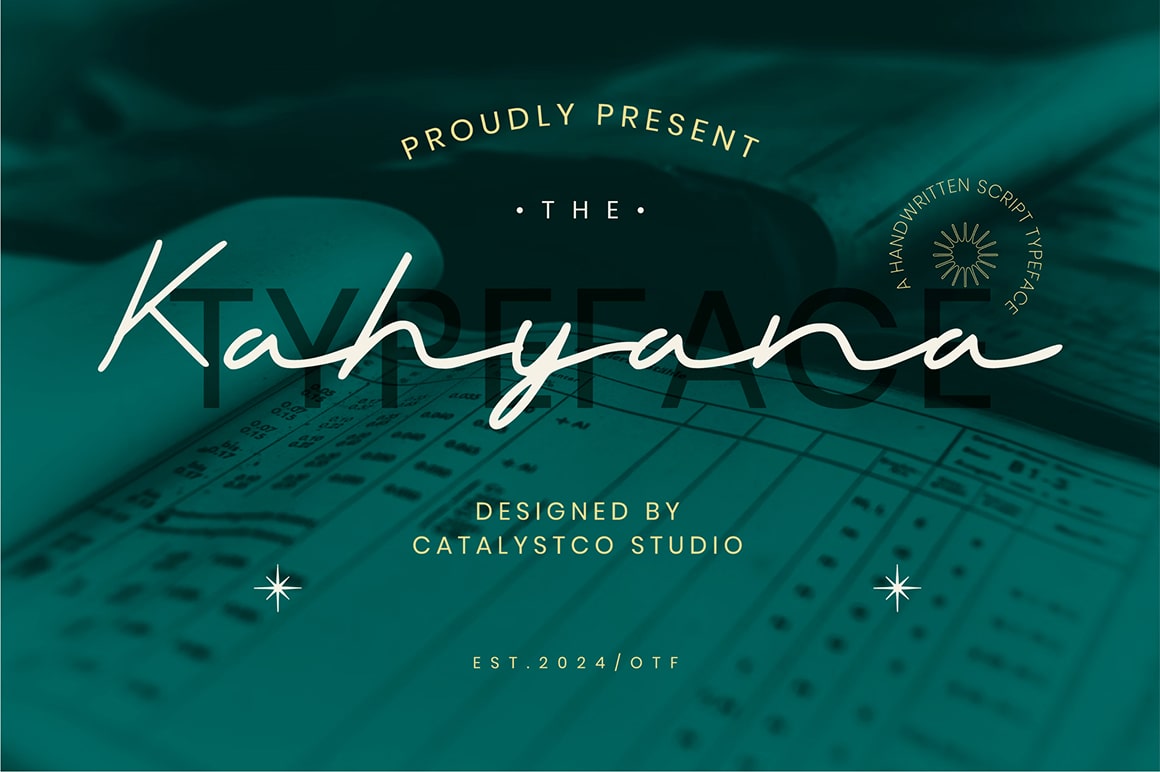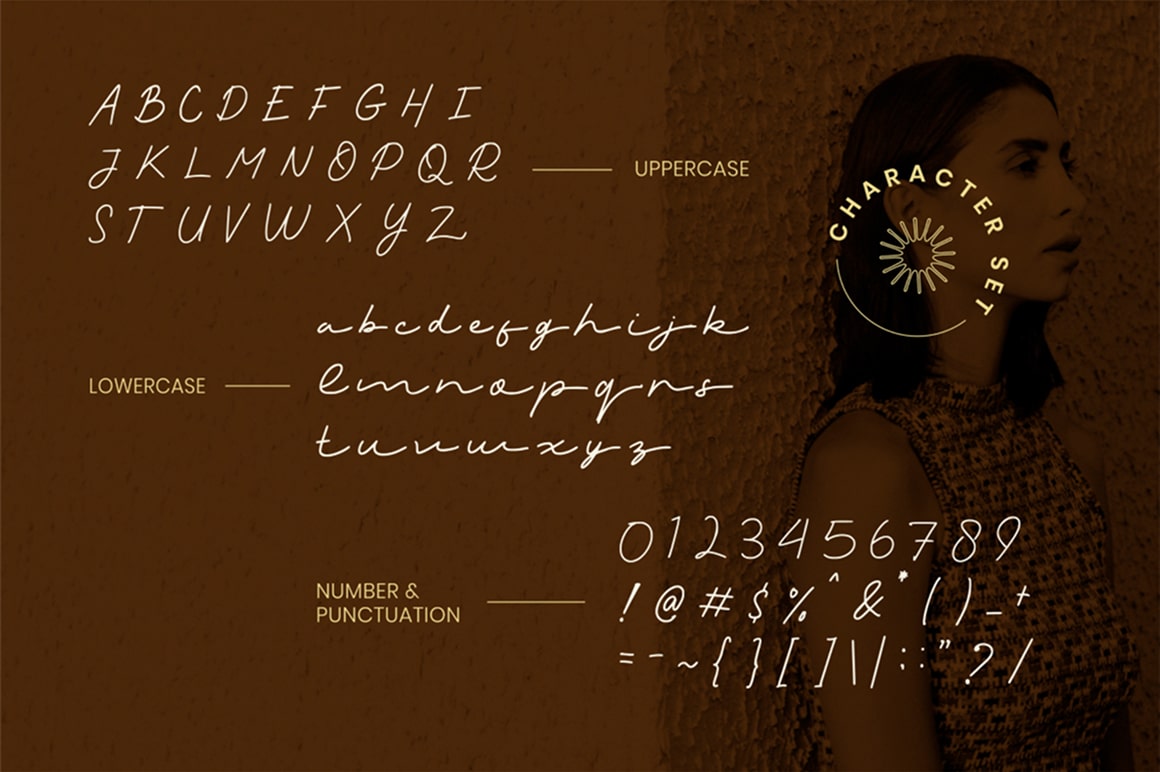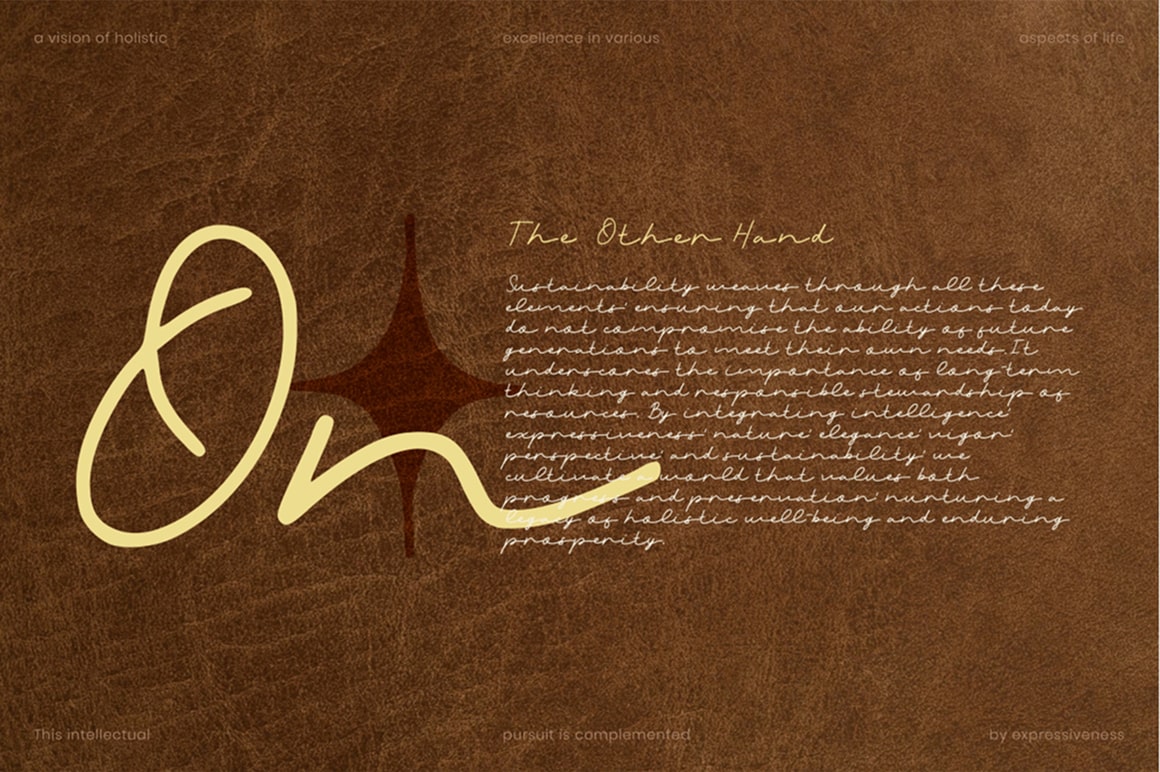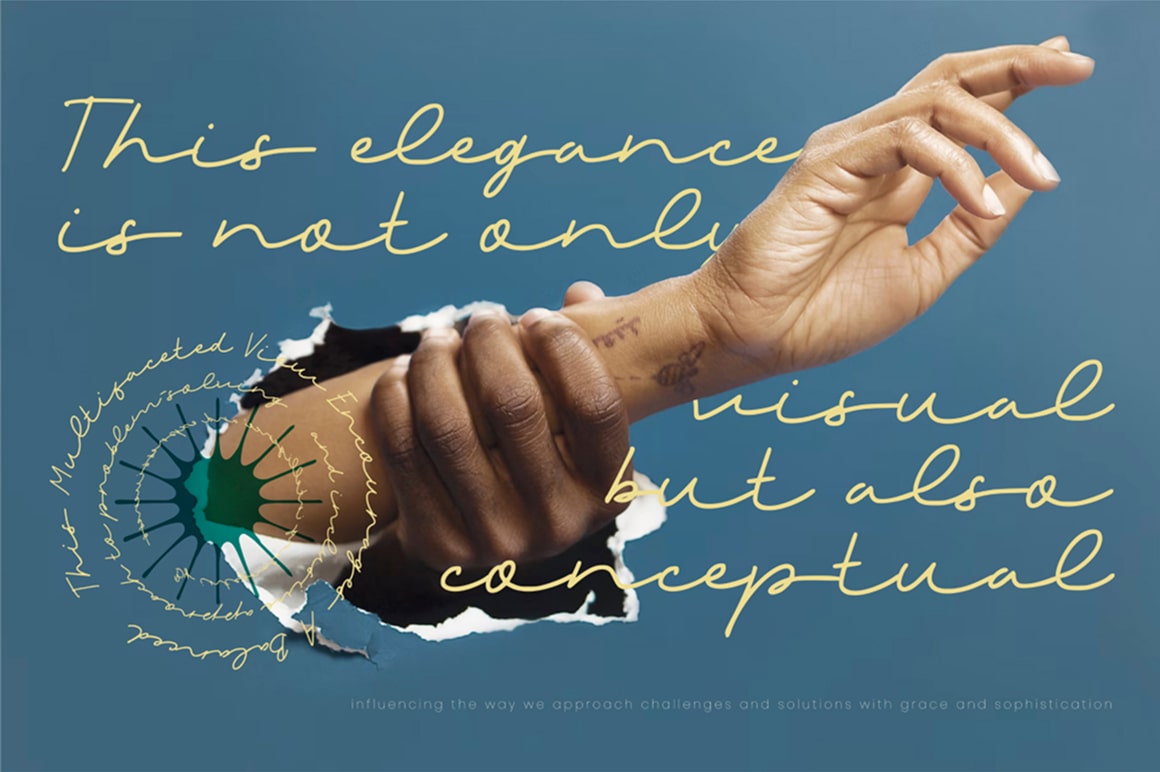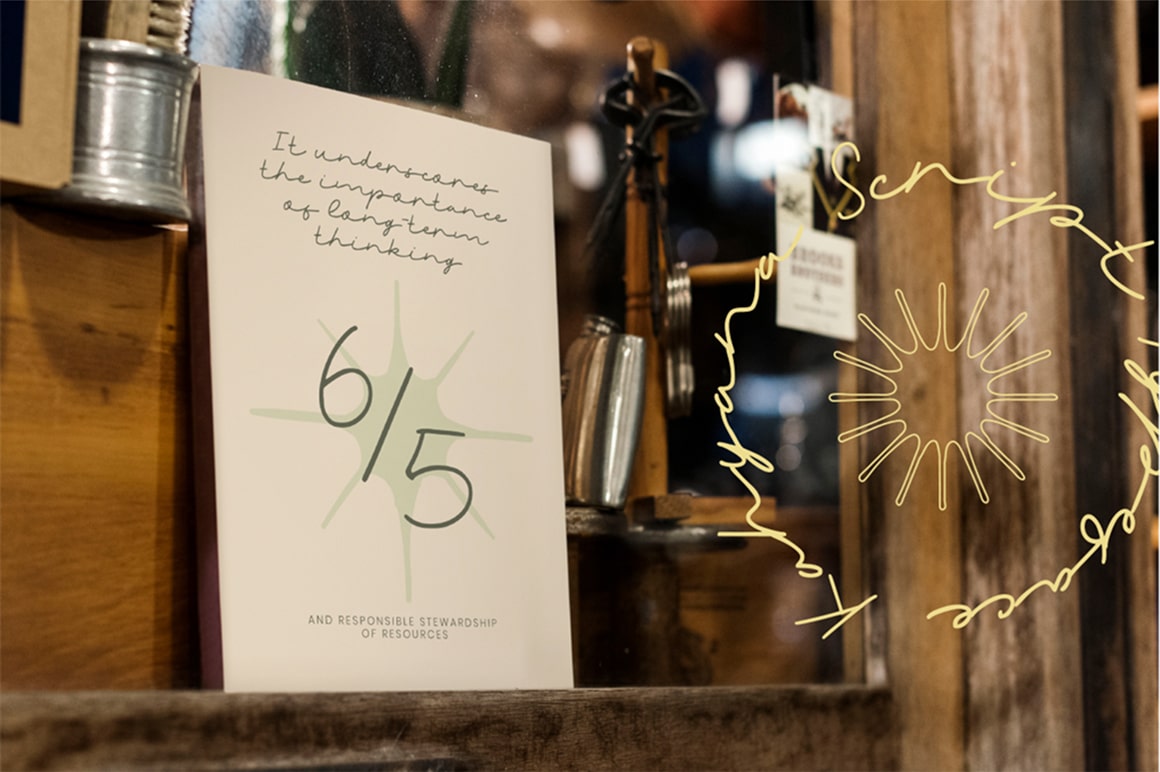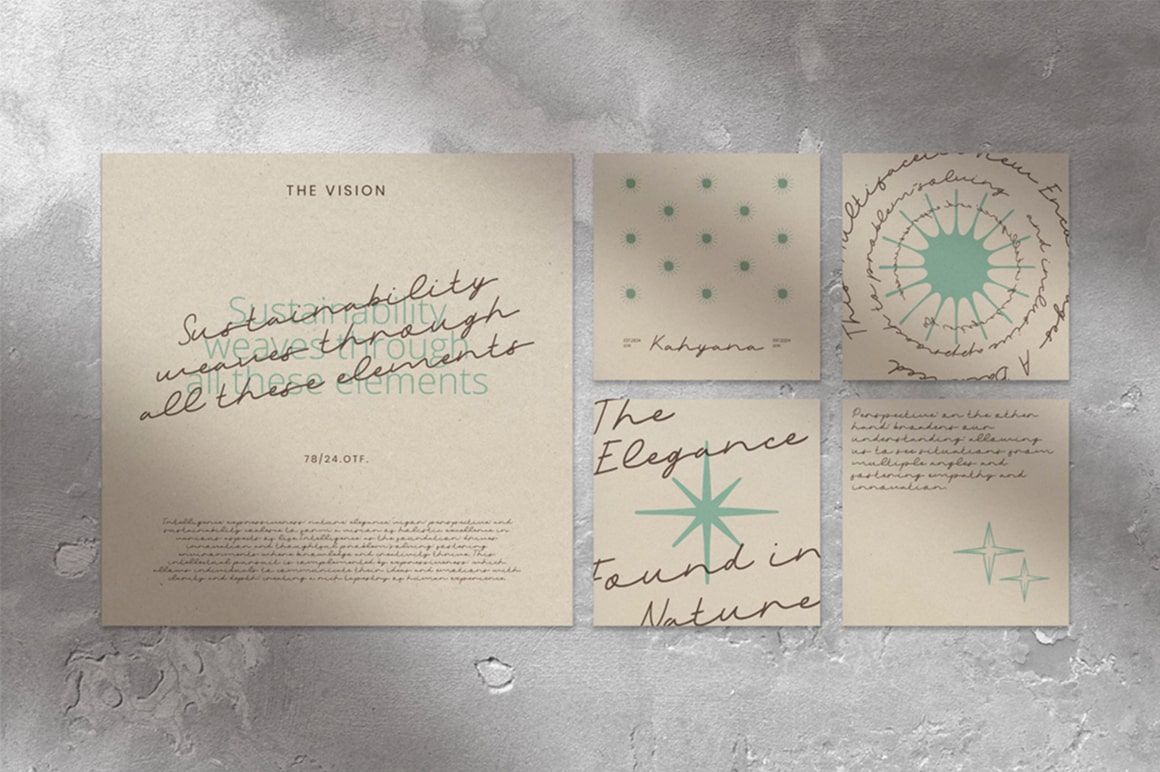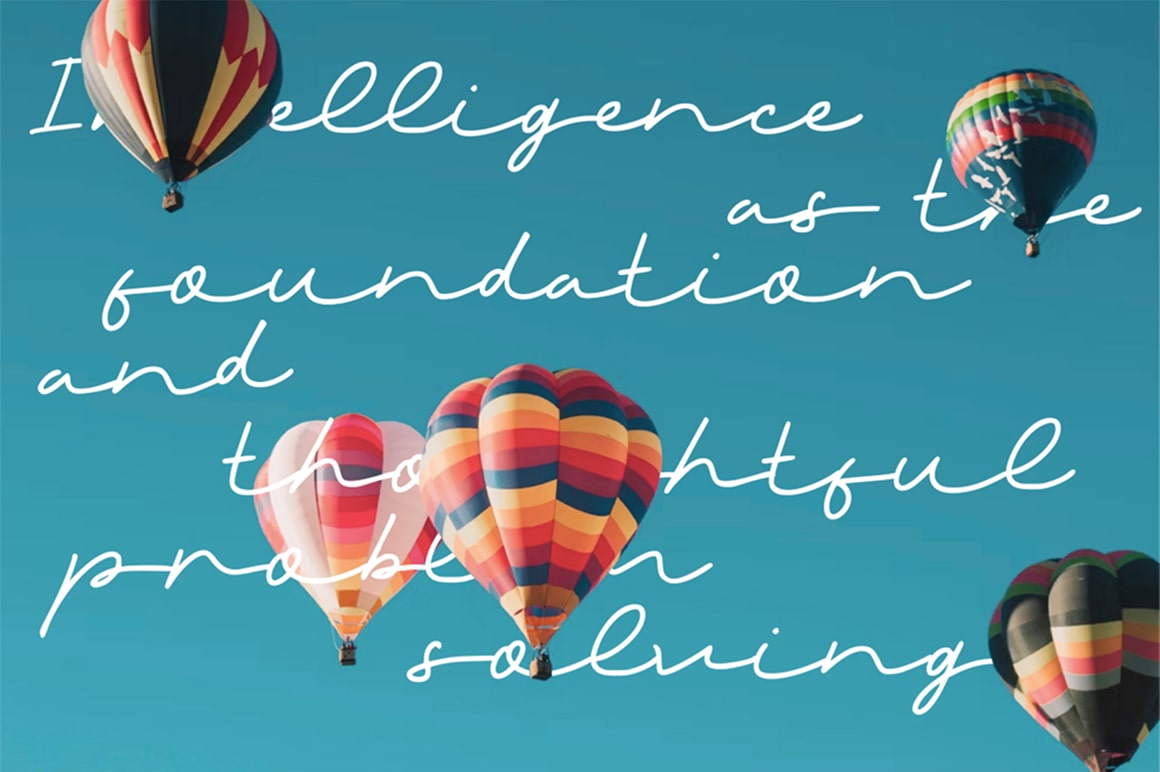
Kahyana Handwritten Script Font
Kahyana Handwritten Script Font typeface excellent used for the manufacture quote text, logotype, header magazine, and many more.
• Uppercase & Lowercase
• Ligatures & Alternate
• Numeral & Punctuations